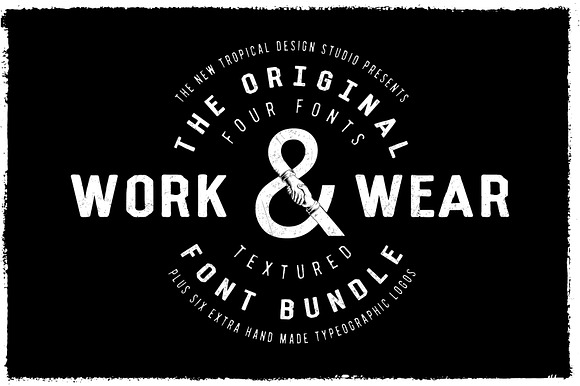
Workwear Retro Font Logo Bundle
Workwear Retro Font Logo Bundle by NewTropical is a font selected for branding, posters, packaging, typography.
Why Workwear Retro Font Logo Bundle is worth a look
Workwear Retro Font Logo Bundle by NewTropical fits naturally into Branding, posters, packaging, typography.